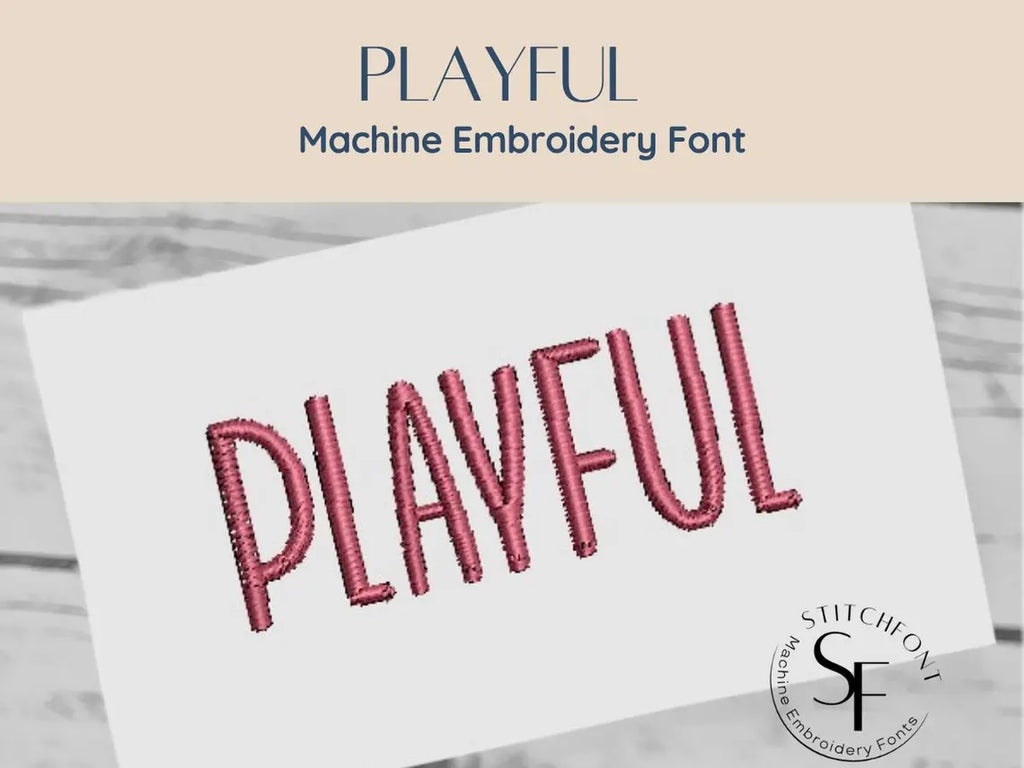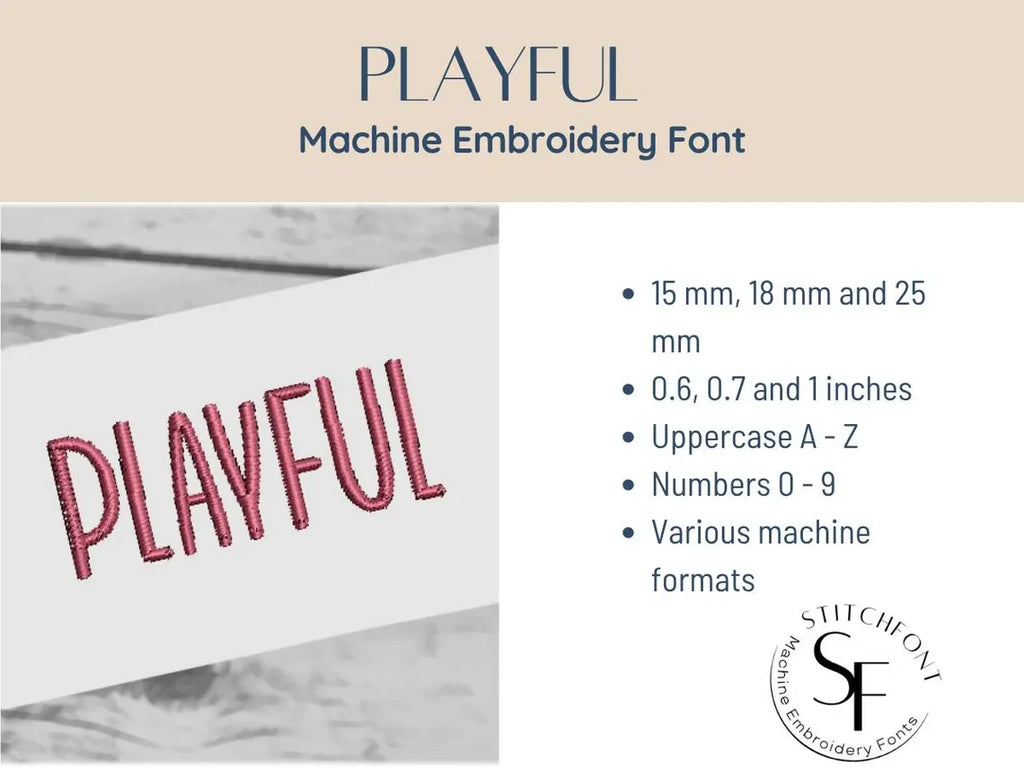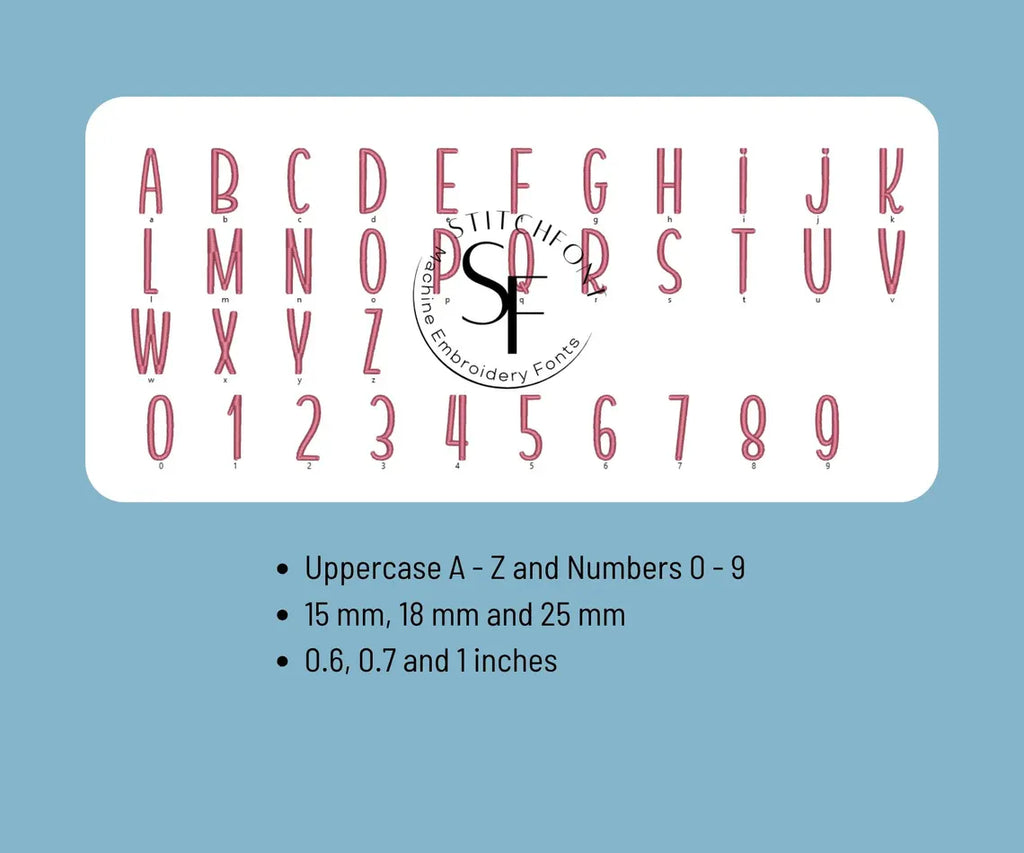
🎉 Playful Embroidery Font – Fun Small Letters for Bold Designs! 🎉
Add a cheerful twist to your projects with the Playful Font – a fun font that brings personality to names, initials, and numbers. Perfect for kids' gear, fun gifts, and colorful décor, this font is made to stand out!
* Sizes: 15mm (0.6"), 18mm (0.7"), and 25mm (1")
* Satin Stitch for a smooth, clean finish
* Full Uppercase Alphabet (A–Z)
* Numbers 0–9
✨ Perfect For:
* Kids' clothing, backpacks, and towels
* Banners, birthday gear, and teacher gifts
* Personalized embroidery with a playful touch
💖 Why You’ll Love It:
* Easy-to-read lettering
* Crisp satin stitching for professional results
* Digitized for smooth stitching on most machines